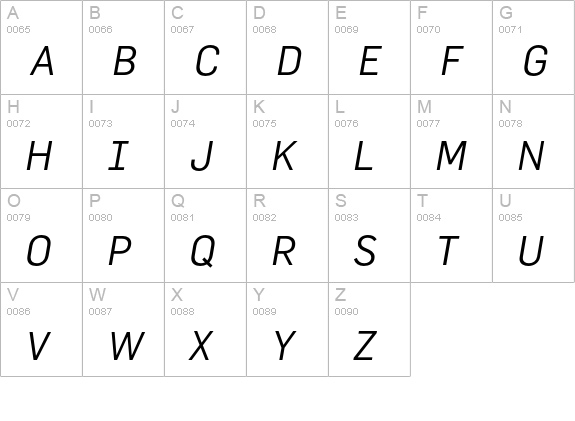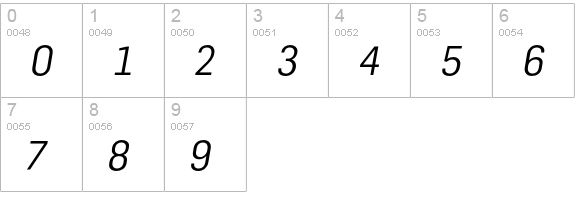
FlamaBook Italic Font Details
FlamaBook Italic is a distinctive, italic variant in the FlamaBook typeface family \xE2\x80\x94 well suited to design and typography projects.
Introducing FlamaBook Italic font, a sleek and elegant typeface that exudes sophistication and modernity. The italicized design adds a touch of flair to any project, making it perfect for headlines, quotes, and branding materials. The slender and graceful strokes of FlamaBook Italic font create a sense of refinement and style, making it a versatile choice for both digital and print applications. What sets FlamaBook Italic font apart is not only its impeccable design but also its accessibility. This premium font is available for free download exclusively at FontsMarket.com, allowing designers, creatives, and enthusiasts alike to elevate their work with this exquisite typeface without any cost. Embrace the beauty and versatility of FlamaBook Italic font today and watch your designs come to life with sophistication and charm.